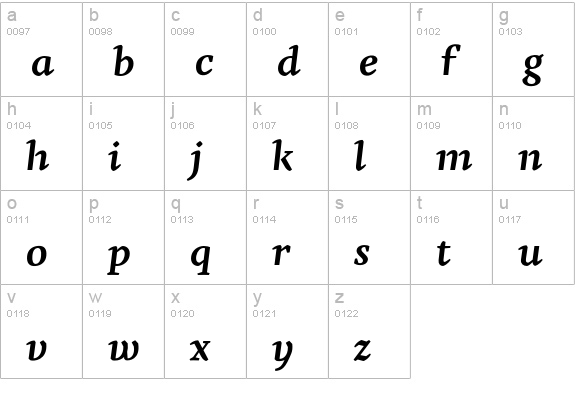
Agendatype Bold Italic is a strong, high-contrast, italic variant in the Agendatype typeface family \xE2\x80\x94 well suited to headlines, attention-grabbing titles, and strong calls-to-action.
Agendatype Bold Italic is a stunning and dynamic font that exudes confidence and modernity. Its bold and italicized design makes it perfect for headlines, titles, and other attention-grabbing text. The sleek and sophisticated appearance of this font adds a touch of elegance to any project. And the best part? Agendatype Bold Italic is available for free download at FontsMarket.com! Whether you're a designer looking to add a unique flair to your creations or a content creator in need of a bold statement font, Agendatype Bold Italic is the perfect choice. Don't miss out on this incredible opportunity to enhance your designs with this striking and versatile typeface. Download Agendatype Bold Italic today and take your projects to the next level!